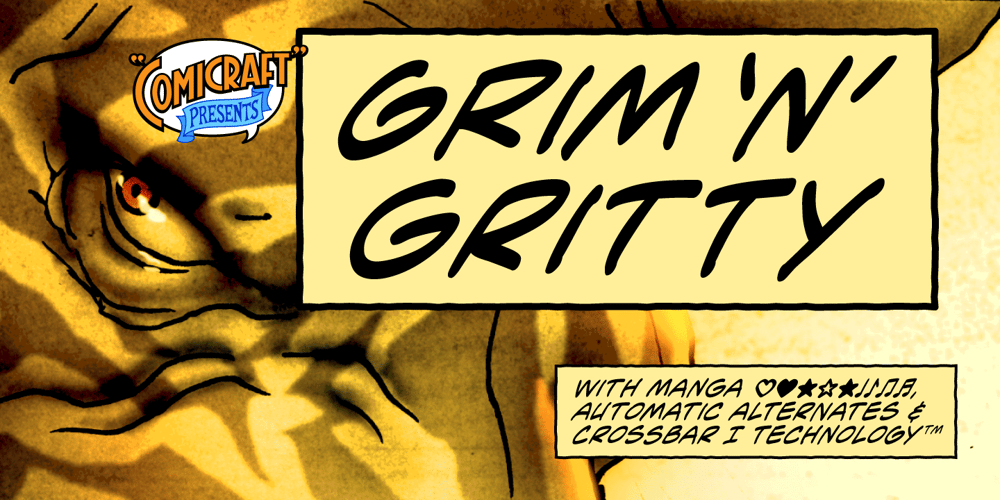
Grim N Gritty Font Family was designed by John Roshell and published by Comicraft. Grim N Gritty contains 4 styles and family package options. CAPTION: Thought Balloons. No use for them any more.CAPTION: You can’t be taken seriously when your thoughts are floating above your head in cute, puffy clouds. CAPTION: Doesn’t look good.CAPTION: When the streets are extended gutters and the gutters are full of blood, a thought bubble just isn’t noir enough, is it?CAPTION: It’s gotta be GRIM.CAPTION: It’s gotta be GRITTY.CAPTION: Let’s face it…CAPTION: It’s gotta be GRIM’N’GRITTY.CAPTION: In Italic and Bold Italic.Also Regular and Bold. But I’ve little use for them either.Talk is cheap.